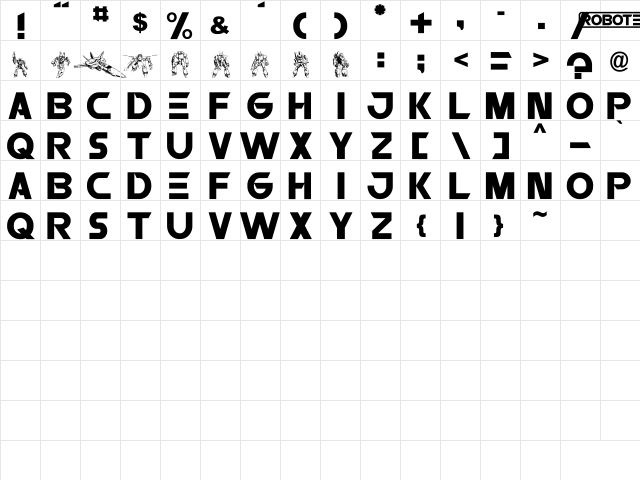
RobAtech Regular
Design Context for RobAtech Typeface
RobAtech has a distinctly futuristic character, with geometric precision and clean angles that feel at home in technology, gaming, and sci-fi contexts.
Pro Tip: Try RobAtech with generous letter-spacing in UI labels and navigation — the geometric forms benefit from room to breathe.